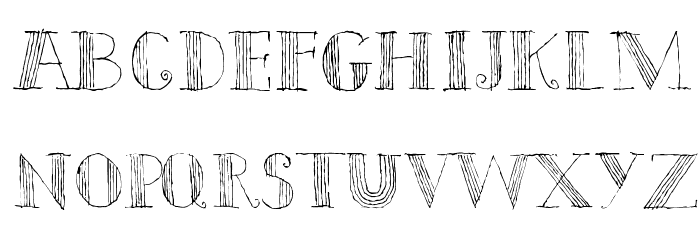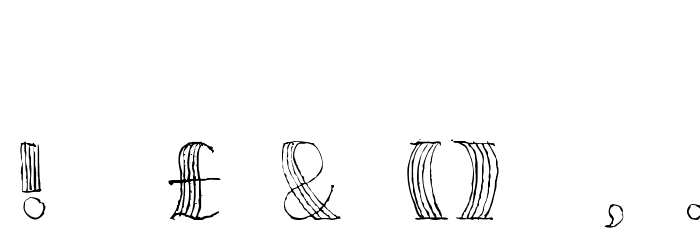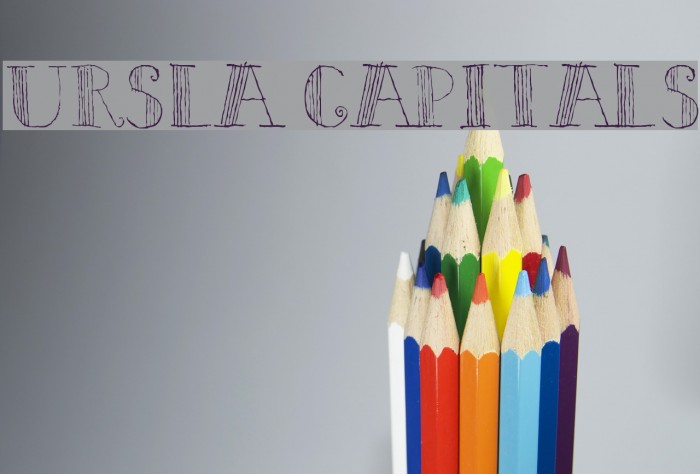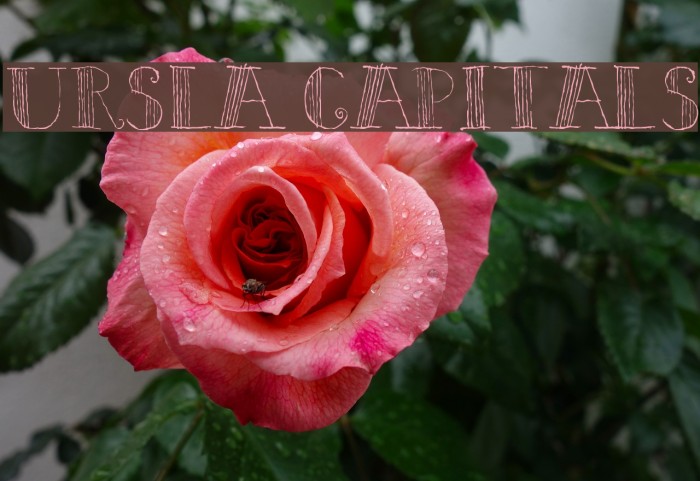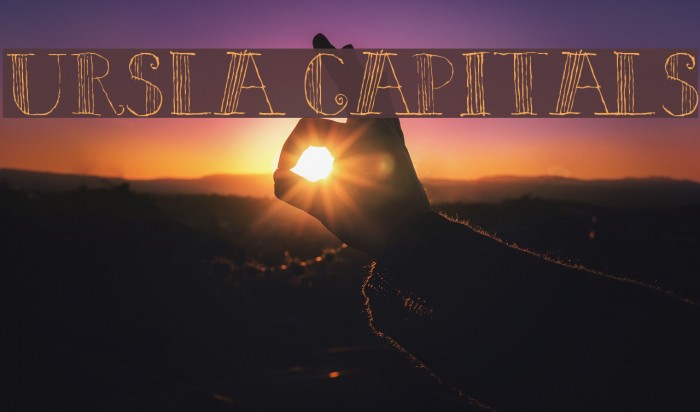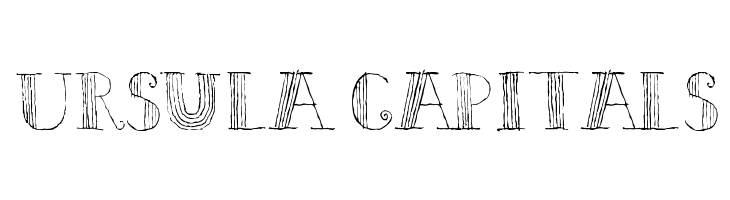
Ursula Capitals Font
This font features a unique and artistic design with a hand-drawn appearance. Each letter is crafted with intricate line work, giving it a textured and sketch-like quality. The characters exhibit a whimsical and decorative style, with playful curls and flourishes that add a sense of movement and creativity. The overall look is both vintage and modern, making it versatile for various design projects. The font's distinctive personality makes it ideal for eye-catching headlines and creative branding.
A whimsical, hand-drawn font with intricate line work and decorative flourishes.
- Proposed Projects: Ideal for creative branding, artistic posters, unique invitations, and eye-catching headlines.
- Use Case: Headlines, Logos, Artistic Designs